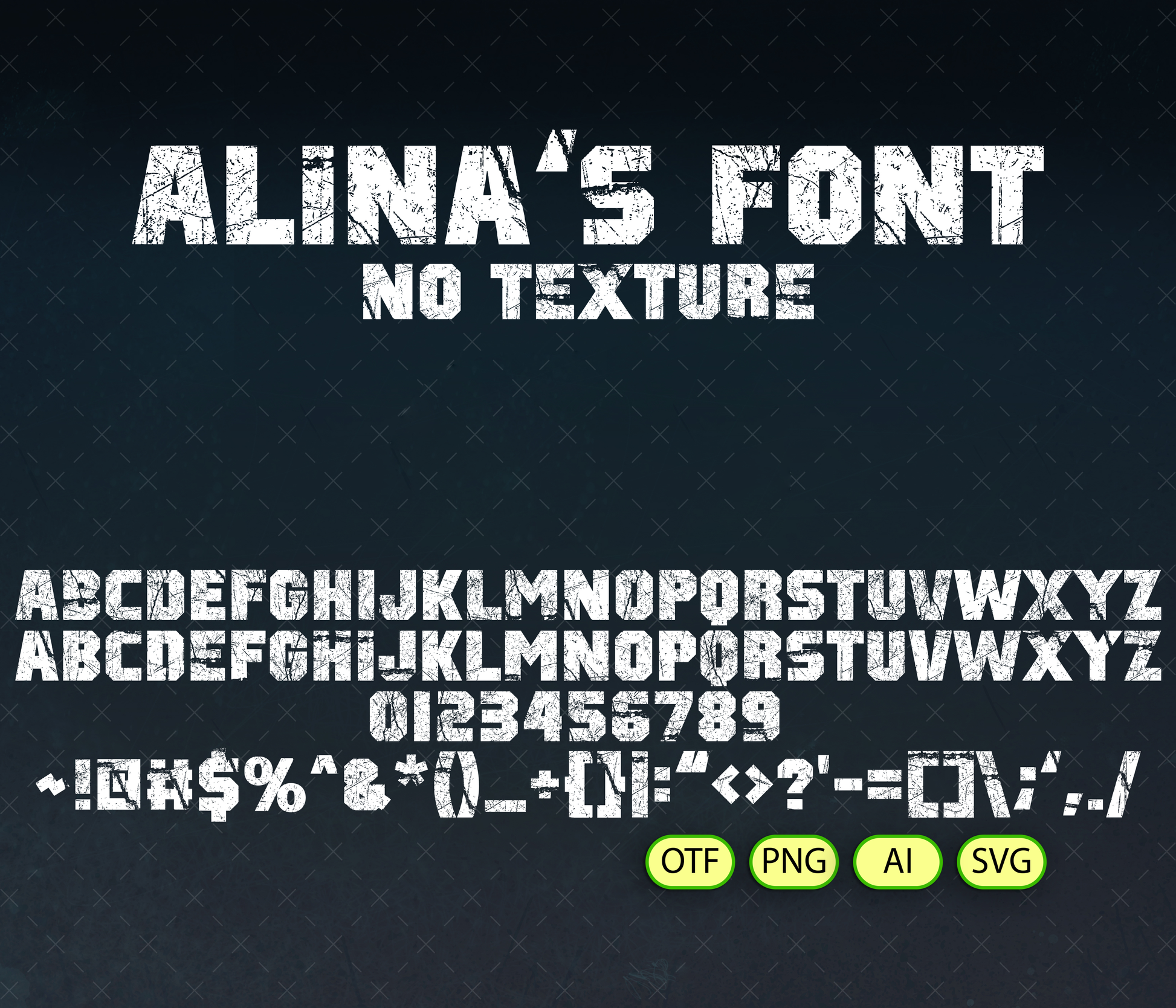
Elite Academy Distressed Font
Step into the gritty underbelly of powered youth with our grunge-style font inspired by the raw, unfiltered world of enhanced students. This typeface captures the chaotic energy and dark rebellion of super-powered academy life, perfect for creators who want to infuse their projects with edgy authenticity and intense attitude.
Our Young Powers Grunge font features distressed, anarchic characters that reflect the brutal reality of gifted youth training. Perfect for:
1. Underground Events: Create raw promotional materials
2. Alternative Media: Design edgy graphics and titles
3. Punk-Style Content: Perfect for rebellious themes
4. Merchandise Design: Create distressed t-shirts and accessories
5. Music Projects: Design album covers and band materials
6. Horror Gaming: Develop dark streaming content
7. Protest Art: Craft powerful statement pieces
8. Alternative Convention Materials: Design gritty banners and signs
Creative Applications
Transform your designs with the power of this dystopian academy-inspired typeface. From promotional materials to personal projects, this font delivers the perfect balance of anarchy and structured rebellion. Ready to bring dark super-powered vibes to your designs? This font is your gateway to creating impactful, intensely distressed content.